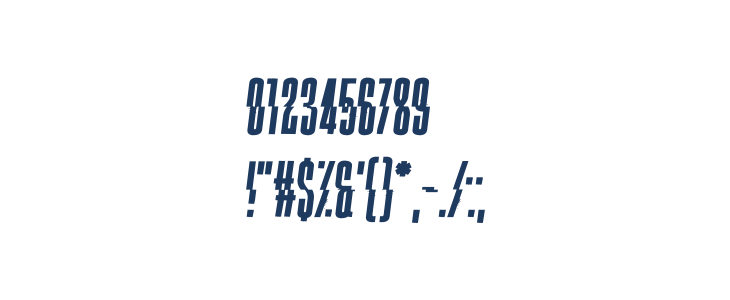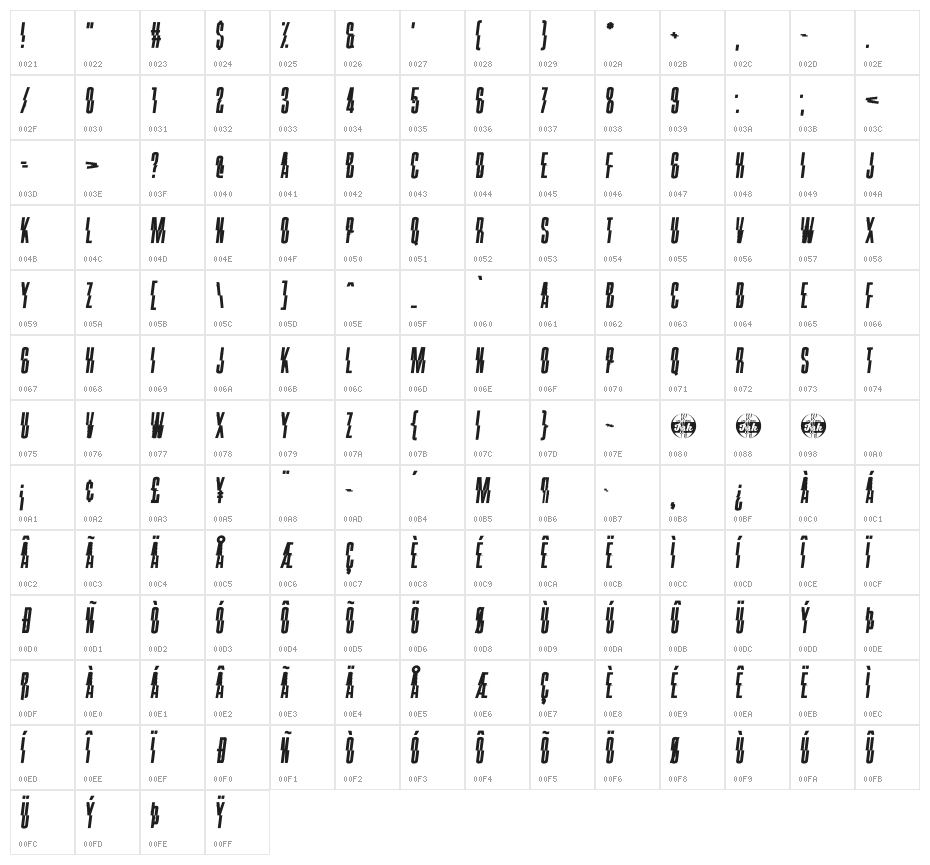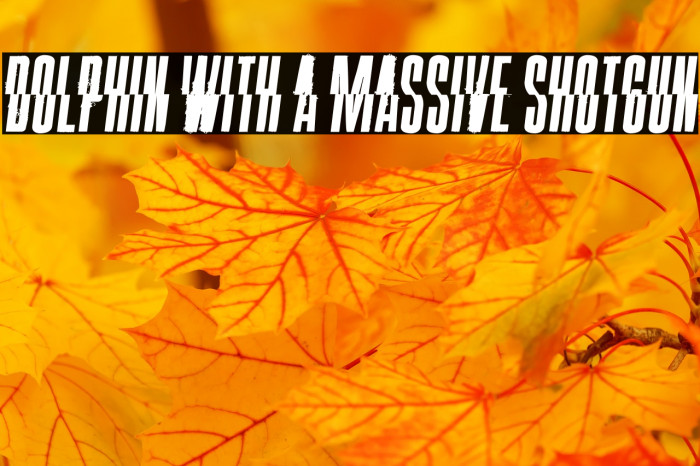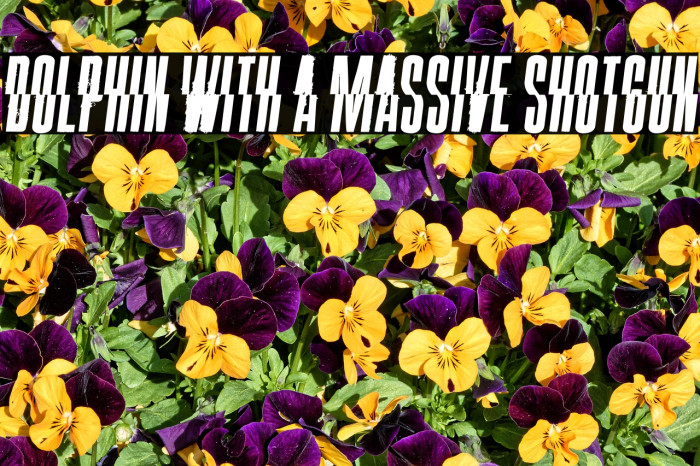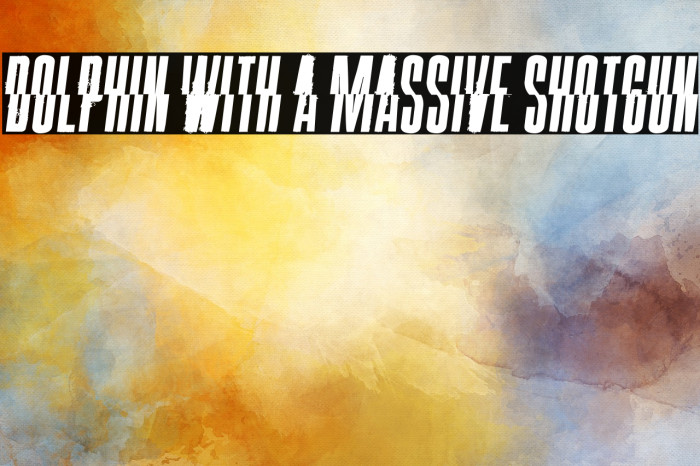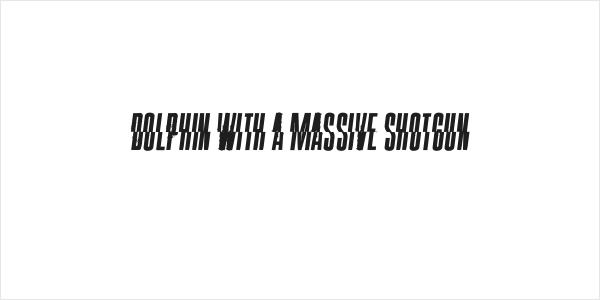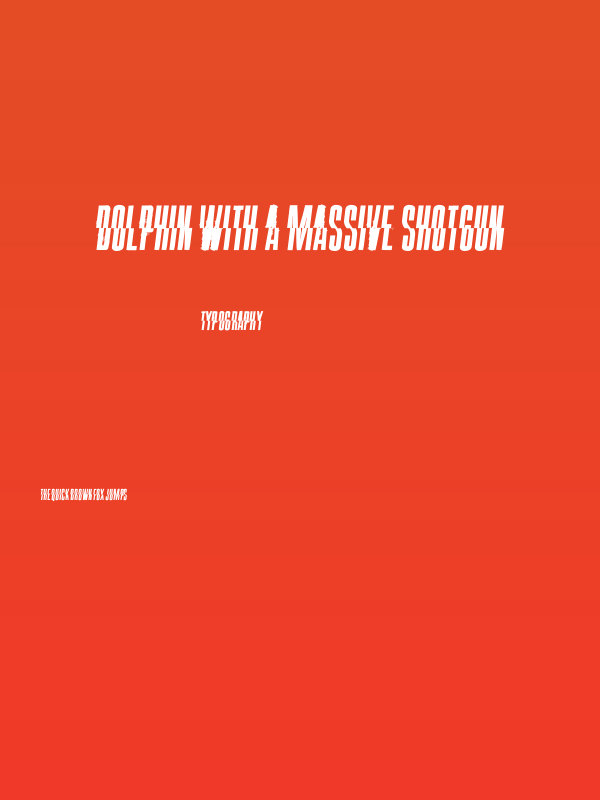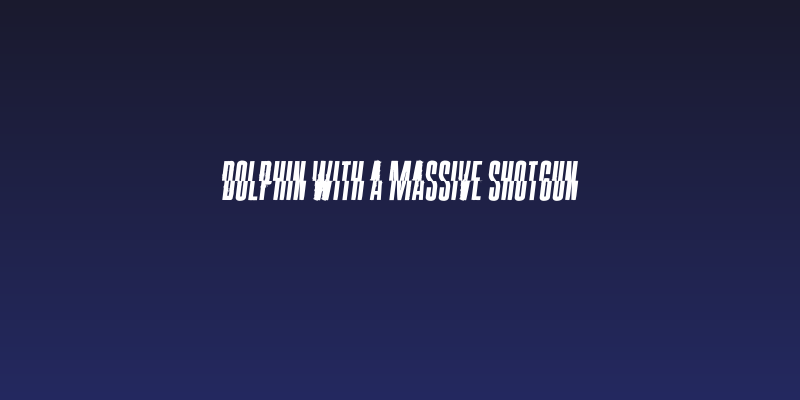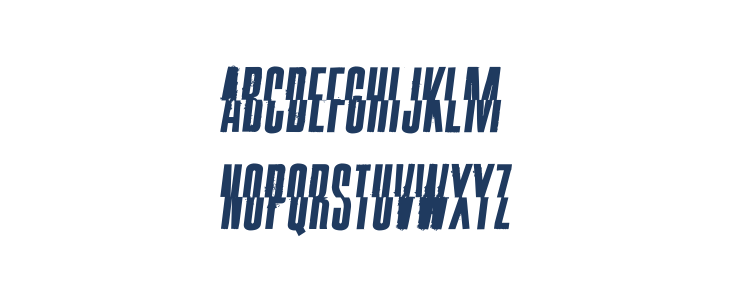
Dolphin with a Massive Shotgun Font
Dolphin with a Massive Shotgun Description
This font features a bold and aggressive style with a distinct slanted orientation, giving it a dynamic and energetic appearance. The characters are heavily condensed, with a strong vertical emphasis and sharp edges. The distressed texture adds a gritty, urban feel, making it stand out as a display typeface. The uppercase letters are particularly striking, with a consistent height and boldness that commands attention. The numerals and special characters maintain the same bold and distressed aesthetic, ensuring a cohesive look across all glyphs.
| Overall Style | Modern, Urban, Edgy |
| Proposed Projects | Ideal for music album covers, sports branding, urban-themed posters, and edgy apparel designs. |